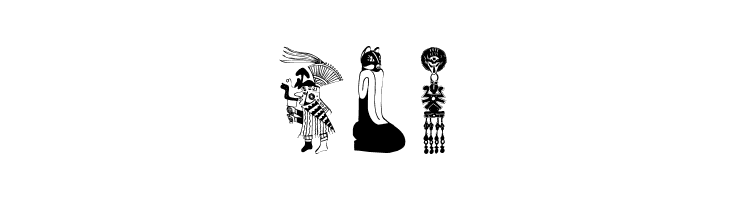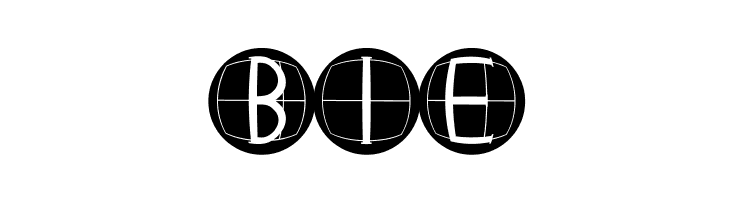
A decorative font inspired by ancient Mesoamerican art, featuring intricate and bold glyphs.
A decorative font inspired by intricate bird motifs with artistic and detailed designs.
An intricate and decorative uppercase font with geometric and ornamental details.
A decorative collection of African-inspired symbols and patterns.
A bold, geometric font inspired by tangram puzzles, ideal for artistic projects.
An abstract, geometric font inspired by tangram puzzles, featuring bold and angular designs.
A whimsical font featuring intricate animal silhouettes for decorative use.
A geometric, futuristic font with characters enclosed in black circles.
A decorative font with intricate bird and nature-inspired designs.
A decorative font inspired by ancient Mayan glyphs, featuring intricate and artistic designs.